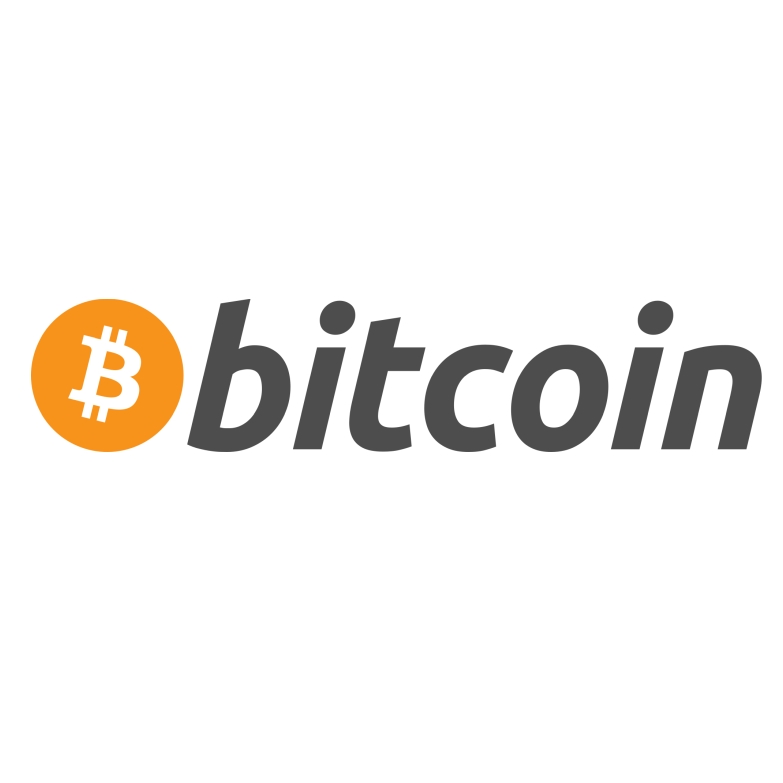
Bitcoin Logo Font
Fonts in UseBitcoin is a decentralized digital currency that operates on a peer-to-peer network, allowing for secure and transparent transactions without the need for intermediaries.
The Bitcoin logo incorporates the Ubuntu Bold Italic font, a humanist sans serif typeface created by Dalton Maag, a London-based type foundry. This freely available font can be downloaded for both personal and commercial purposes from the Fonts Used Section.